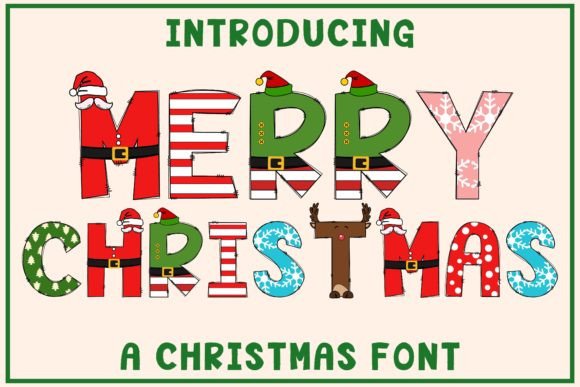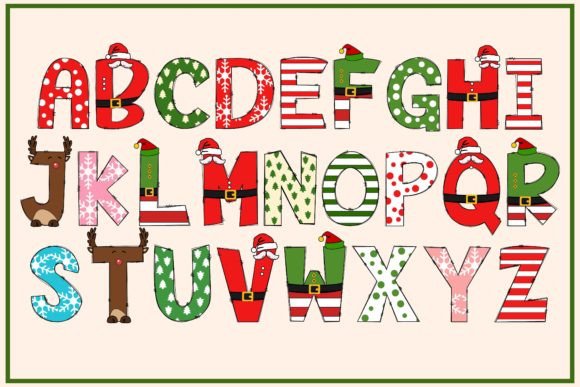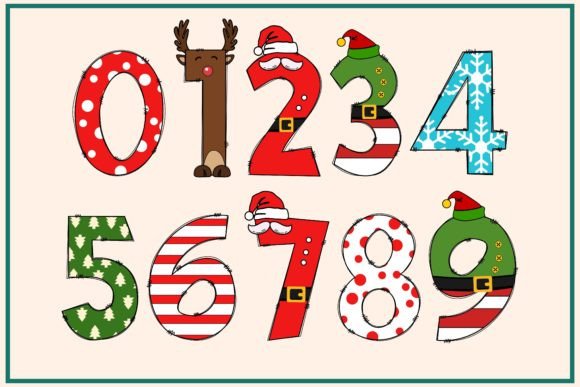
Merry Christmas Font
About Merry Christmas Font
Merry Christmas is a delightful and festive color font that will add a touch of charm to all your Christmas-themed designs. Whether you’re creating holiday cards, party invitations, festive apparel, or crafting projects, this font will instantly bring a joyful and celebratory atmosphere to your designs.
With its vibrant colors and playful letterforms, Merry Christmas font captures the spirit of the holiday season. Each letter is adorned with cheerful elements such as snowflakes, stars, ornaments, or other festive motifs, making it perfect for spreading holiday cheer.
The color variations in Merry Christmas font allow you to create eye-catching and dynamic designs. The letters are filled with a mix of bright reds, greens, golds, and other traditional Christmas colors, adding a lively and festive touch to your projects. Whether you’re designing a Christmas-themed logo, creating custom apparel, or adding a decorative touch to your social media posts, Merry Christmas font will make your designs stand out.
Spread the joy and warmth of the holiday season with Merry Christmas font. Let its whimsical and playful style bring a smile to people’s faces and create a merry and festive atmosphere in your designs. Whether you’re designing for personal or commercial purposes, Merry Christmas font is sure to enhance your Christmas-themed projects and make them truly special.